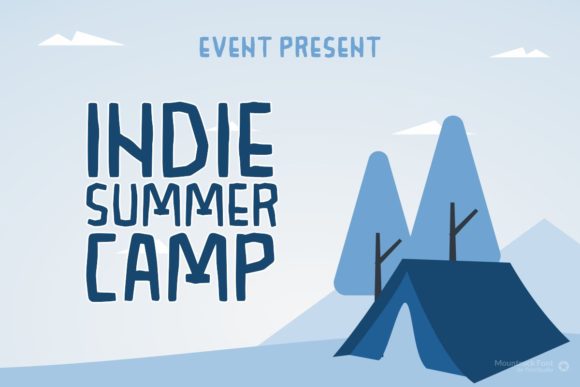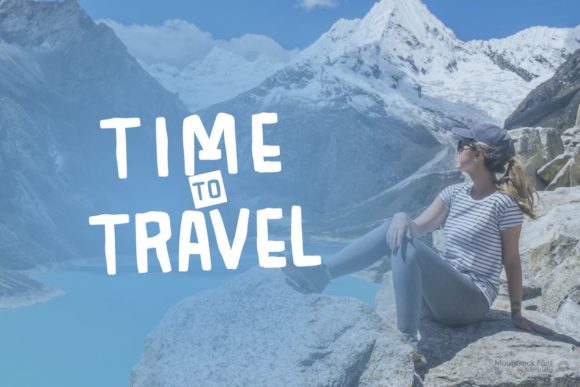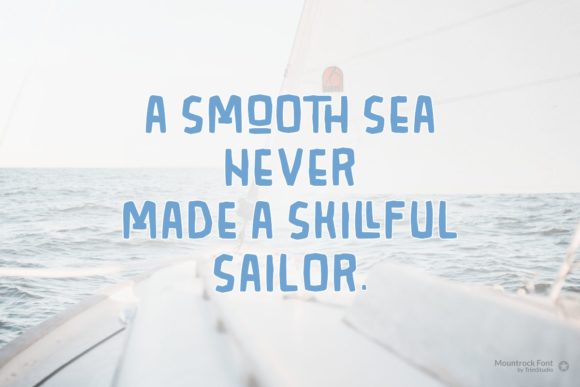
Introduction to Mountrock Font
Mountrock is a blocky and casual display font with an incredible feel.
It will add a cool touch to any design project .
Mountrock Font offers exceptional quality and versatility, making it a valuable addition to your design toolkit. Whether you’re creating for personal projects or commercial use, Mountrock Font delivers professional results.